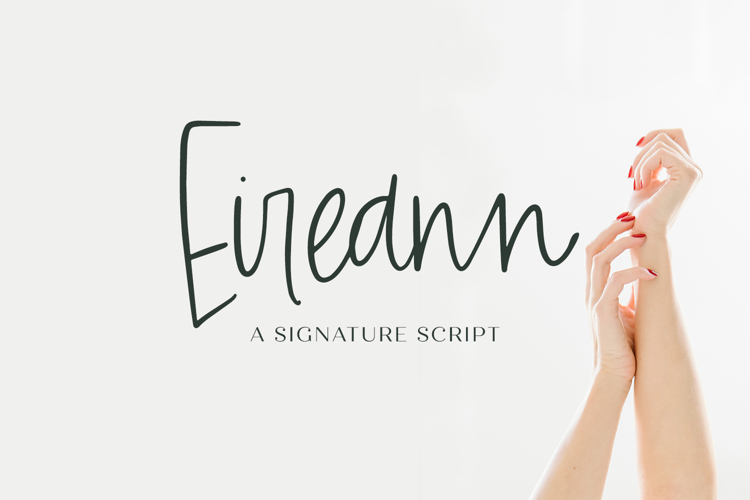
Eireann Script
Meet Eireann Signature Script, a handwritten font that mimics the look & feel of random scrawly notes. A bit feminine in nature, Eireann is thin & fashionable, but still quite impactful. Eireann Signature Script includes a set of lowercase alternates so that you can customize your text just a bit more, and 41 ligatures that make this font super powerful and unique.
Eireann Signature Script is an excellent fit for:
- logo design + branding projects
- print design, like magazines & flyers that need a bold feminine script
- header elements + websites that draw attention
- projects in the fashion industry, high end creatives, and luxury product lines
Eireann includes:
- 26 alternates
- 41 ligatures